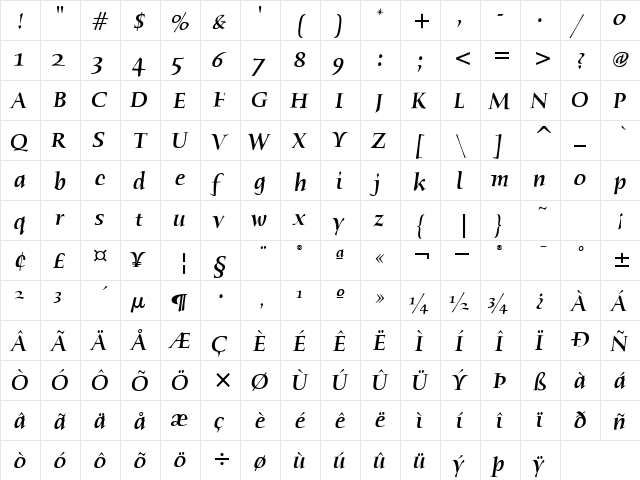
HumanaSerifITC-Medium MediumItalic
Design Context for HumanaSerifITC-Medium Typeface
HumanaSerifITC-Medium brings classic typographic sensibility to the table — its serifs and measured letterforms reflect centuries of print heritage. Its italic angle brings a sense of urgency and motion to the letterforms.